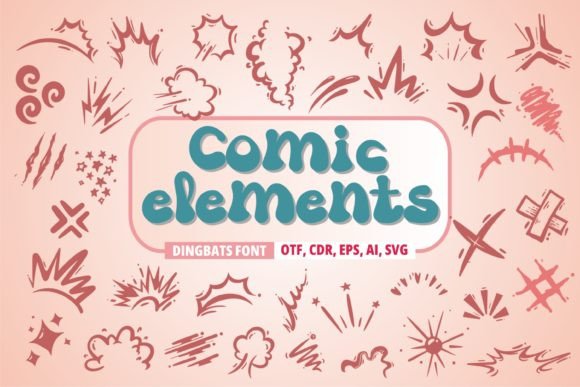
Introducing Comic Elements Font, a playful dingbat font designed to elevate your designs and captivate your audience. Created by the talented onoborgol, this unique font family is perfect for adding a touch of creativity and charm to any project.
Comic Elements Font offers a wide range of hand-drawn dingbats that are guaranteed to bring life and personality to your designs. Whether you're working on a graphic design project, creating invitations, or sprucing up your social media posts, these delightful elements are here to inspire and enhance your creativity.
With Comic Elements Font, the possibilities are endless. Let your imagination run wild as you explore the vast collection of whimsical icons, symbols, and illustrations. From cute animals and playful characters to decorative ornaments and funky patterns, this font has it all.
Stand out from the crowd and make a lasting impression with this eye-catching font. Give your designs a unique twist by incorporating these charming elements into your artwork. Whether you're designing a logo, crafting a poster, or creating a website, Comic Elements Font will add that extra touch of magic that sets your work apart.
Take your designs to the next level with Comic Elements Font. Surprise your audience with delightful illustrations and convey your message in a fun and engaging way. From children's books and greeting cards to packaging designs and branding projects, this font will bring a sense of joy and playfulness to every piece.